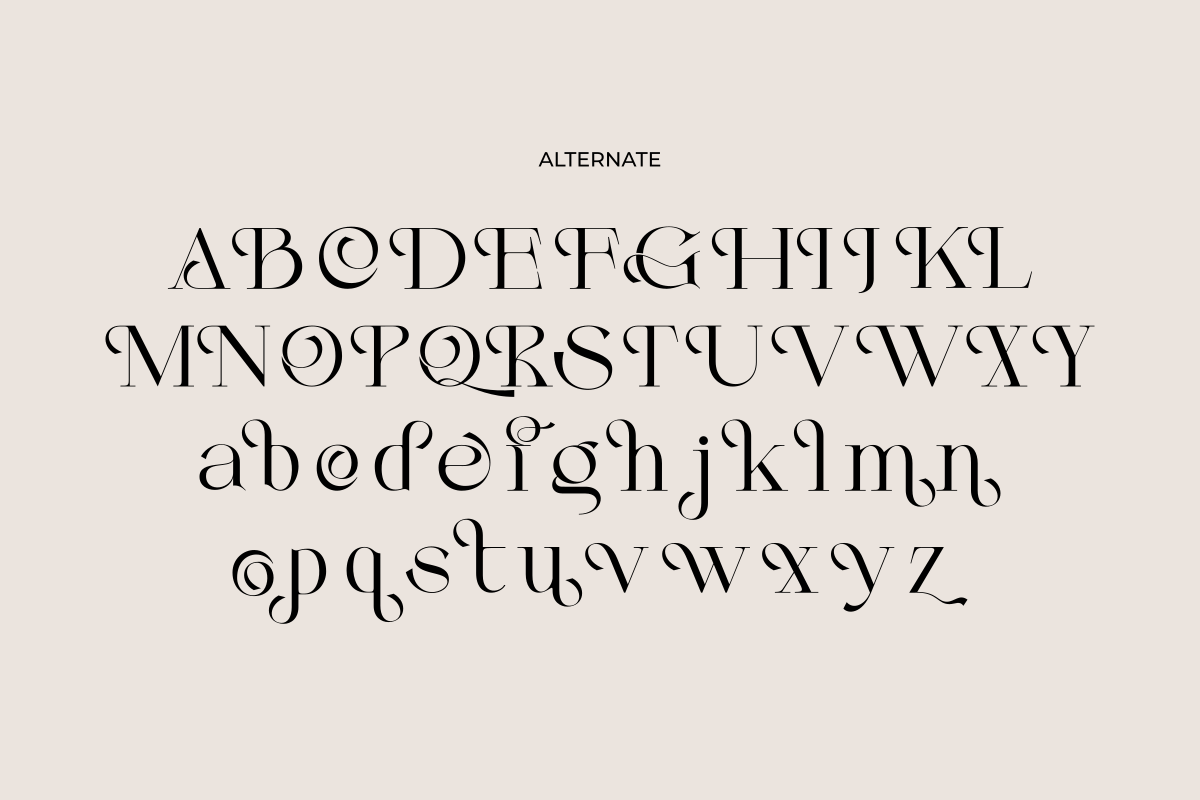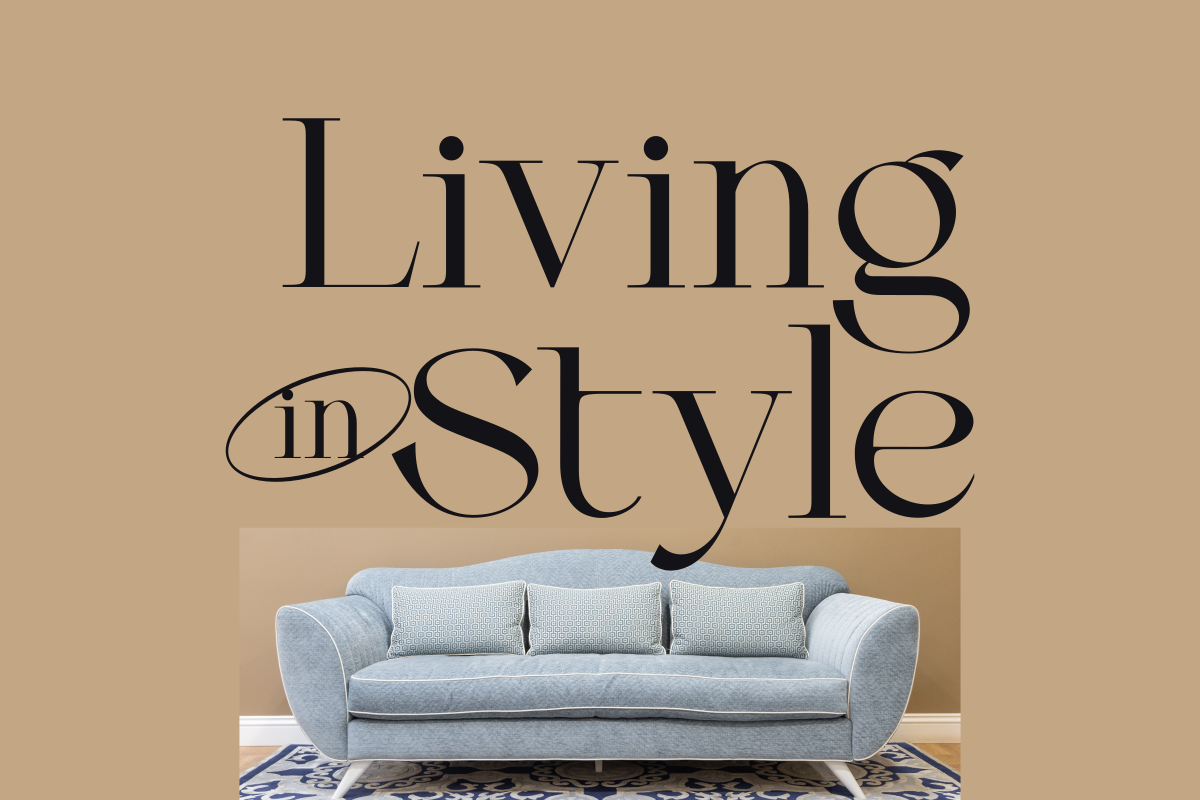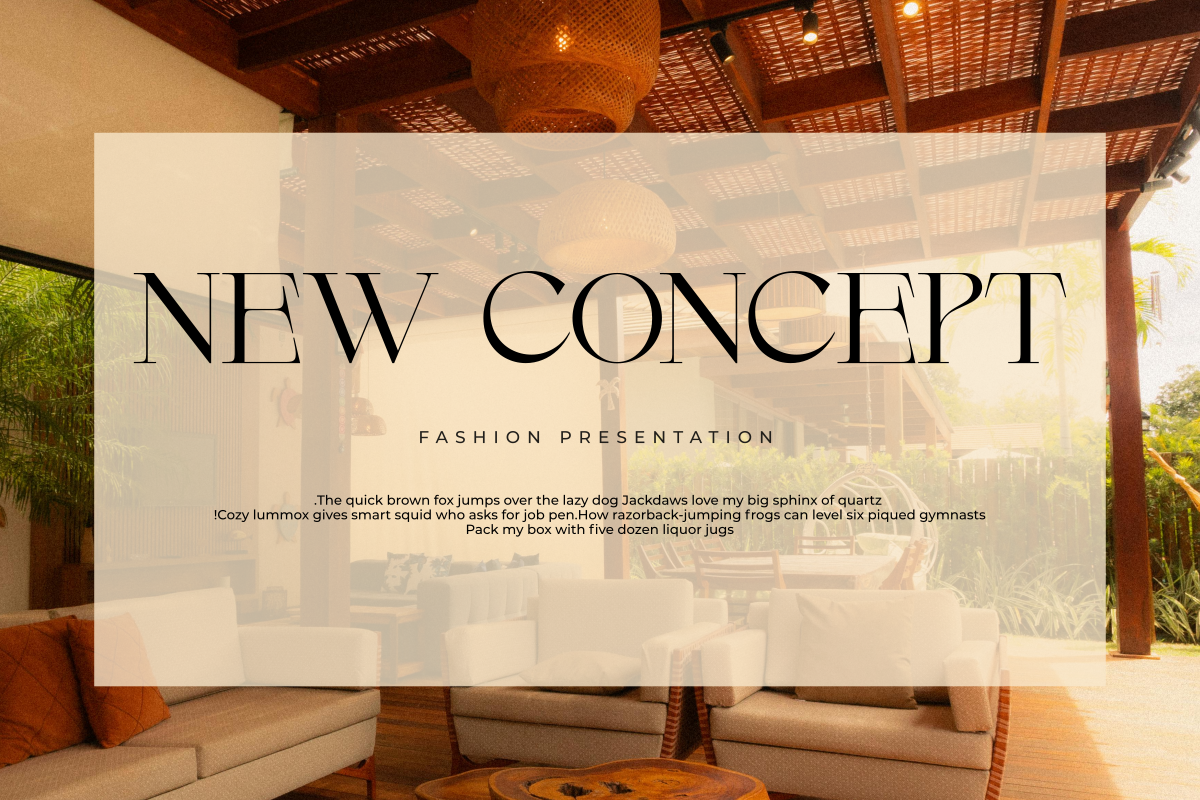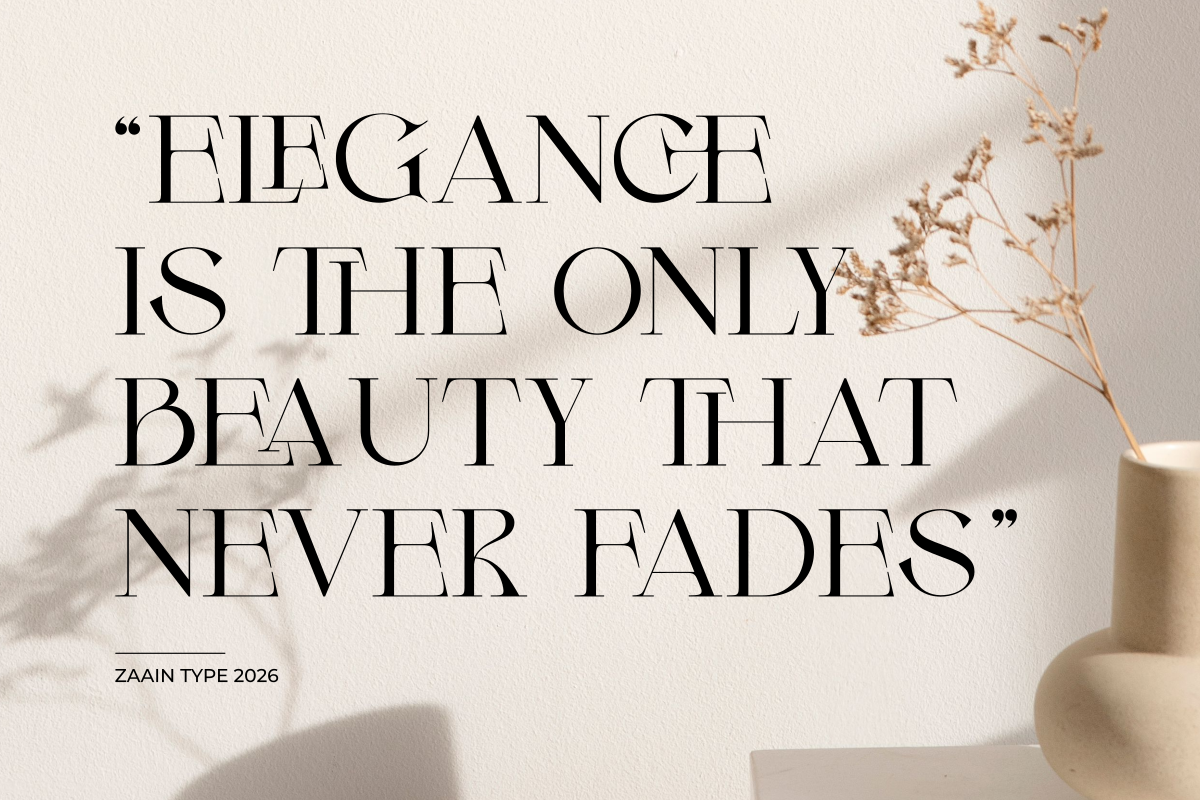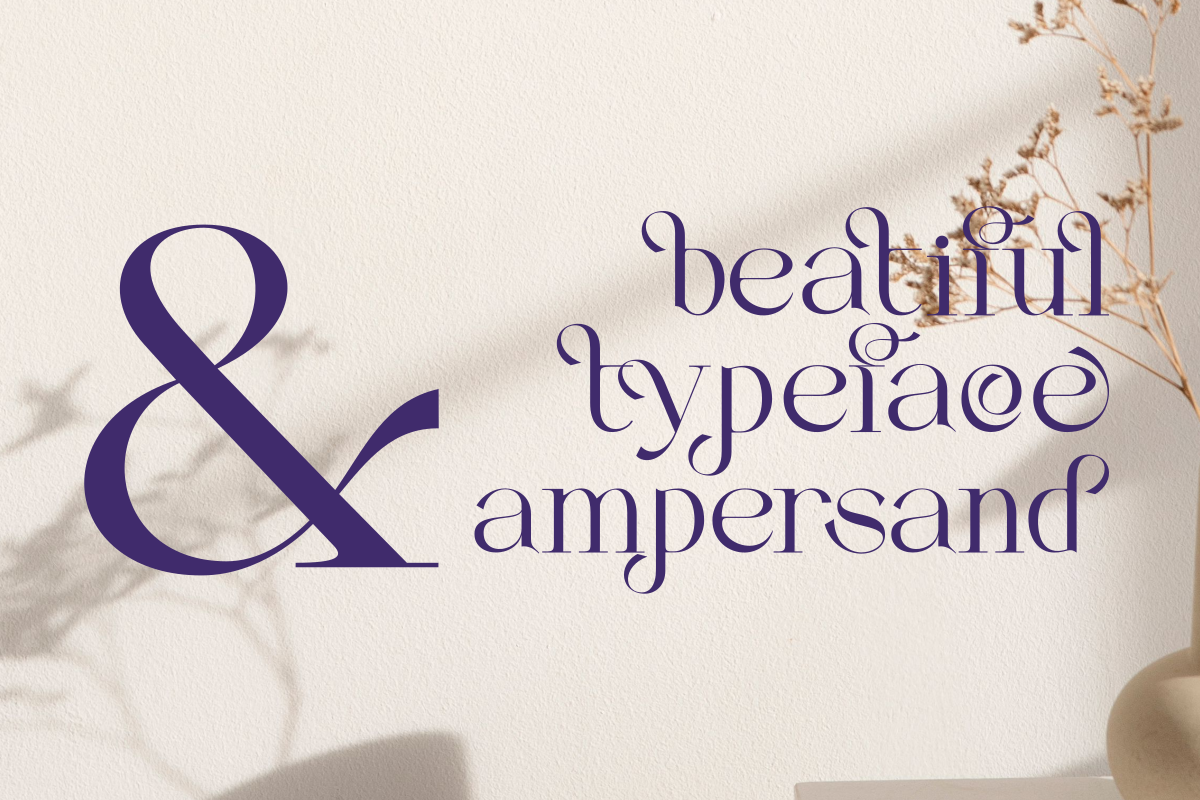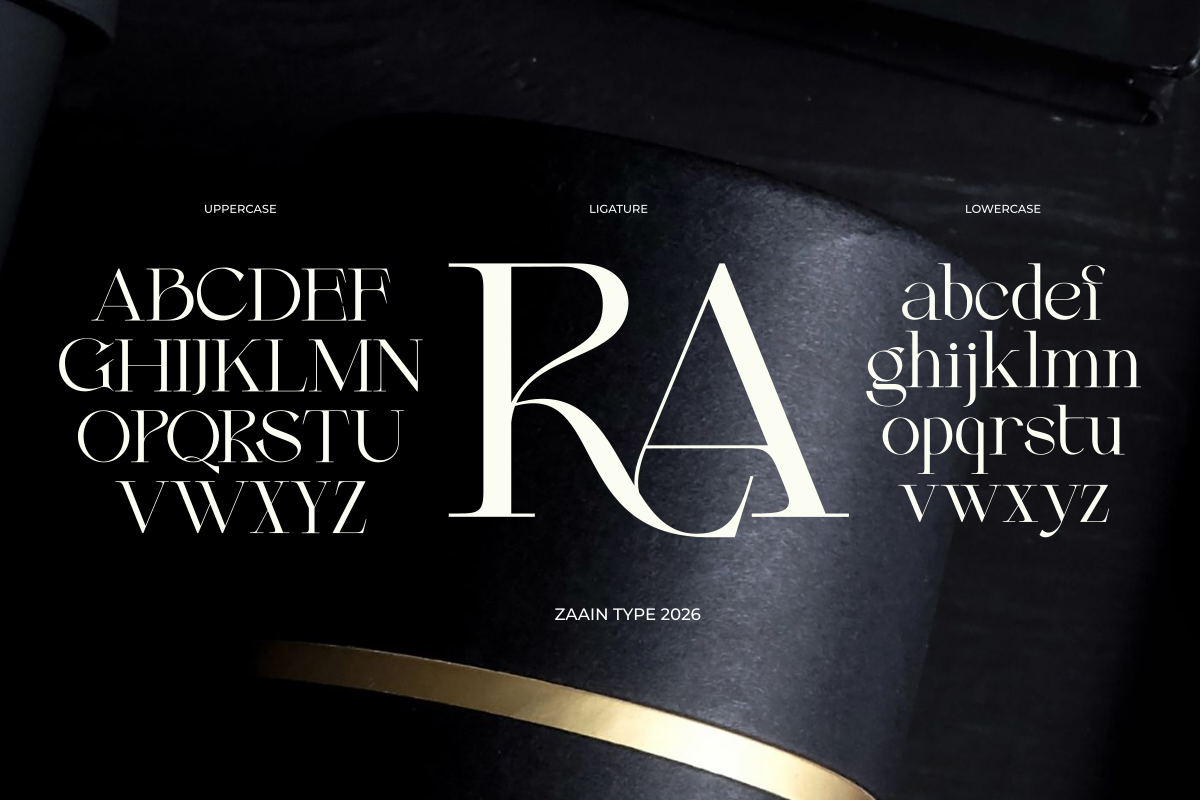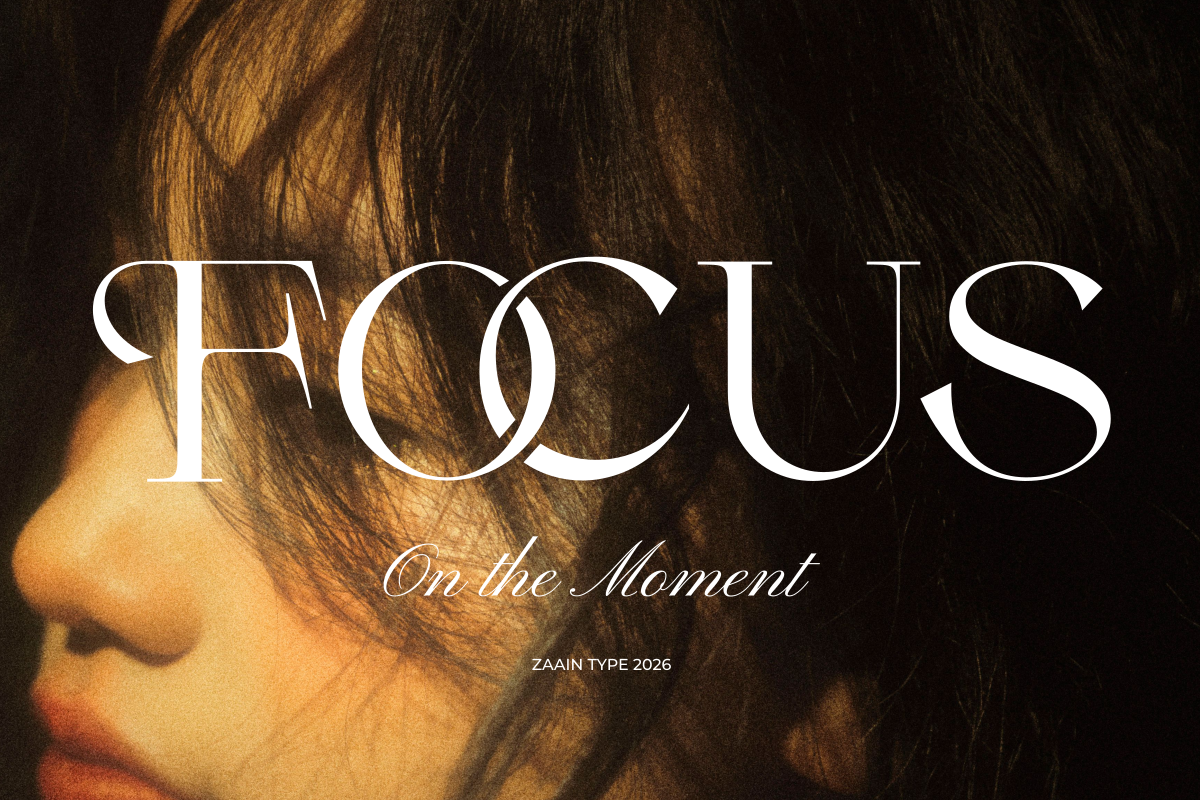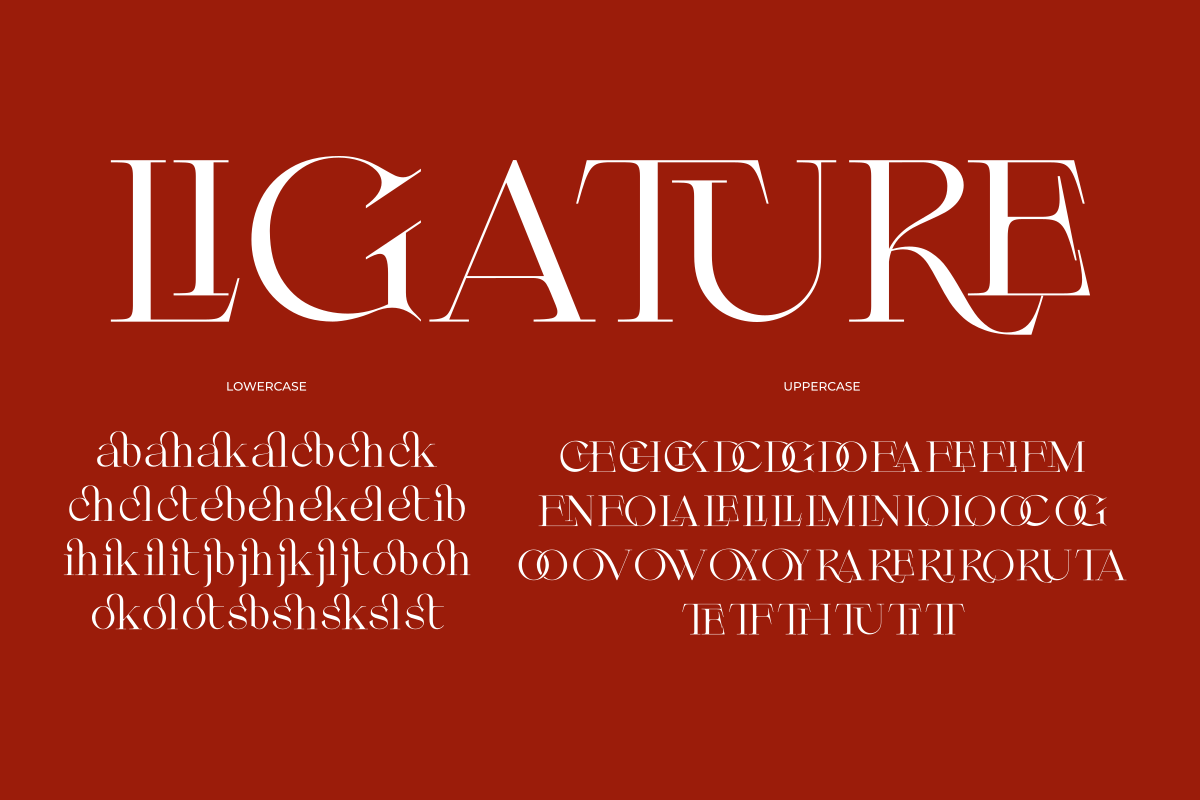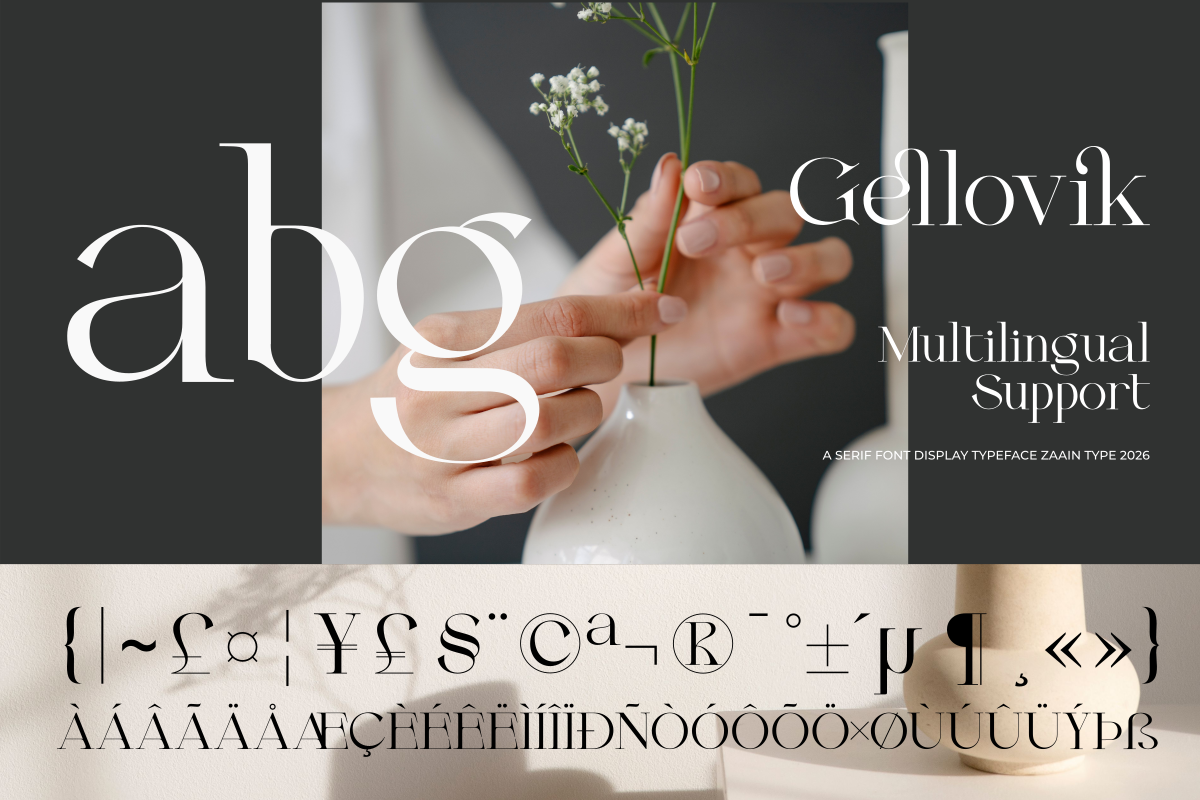
Gellovik
Gellovik is a refined modern serif typeface that blends timeless elegance with contemporary sophistication. Designed with graceful high-contrast strokes, balanced proportions, and beautifully crafted letterforms, Gellovik brings a luxurious character to every design.
Perfect for branding, editorial layouts, fashion campaigns, cosmetic packaging, wedding invitations, logos, magazines, and premium product presentations, Gellovik delivers a polished and memorable visual identity. Whether used for bold headlines or elegant typography, it creates a distinctive and professional impression